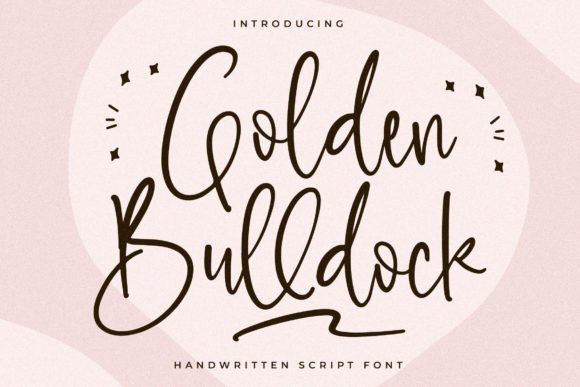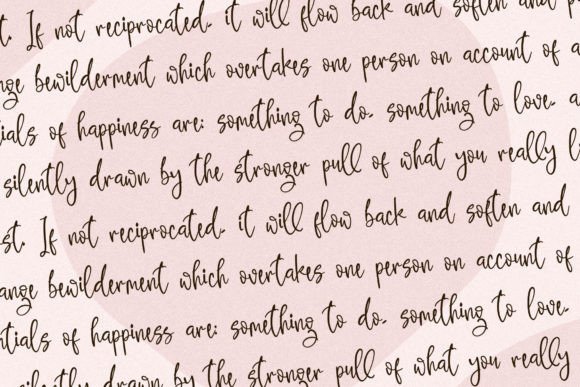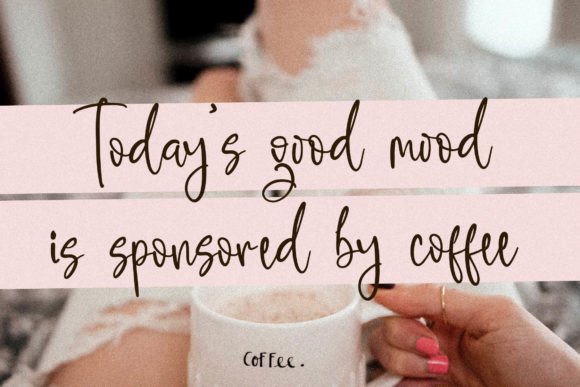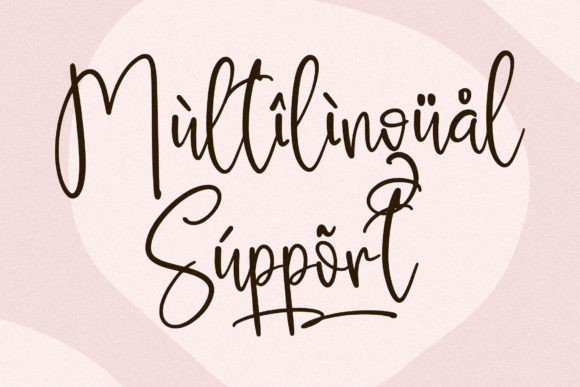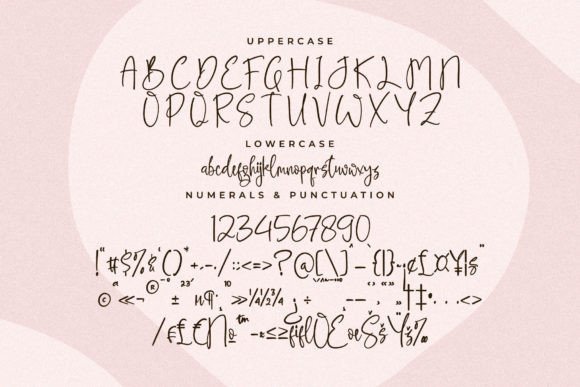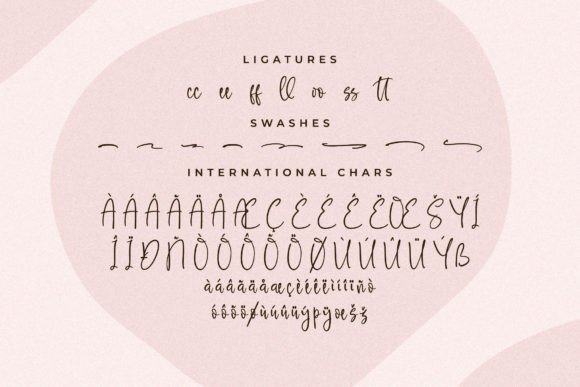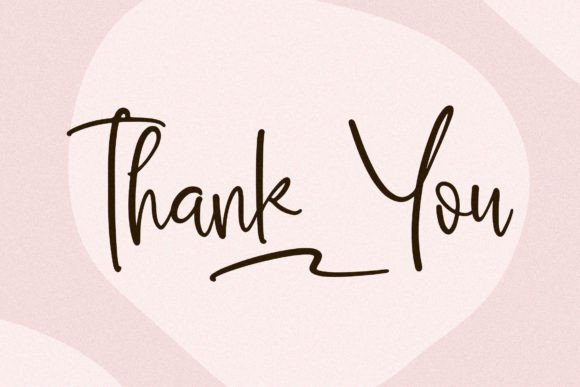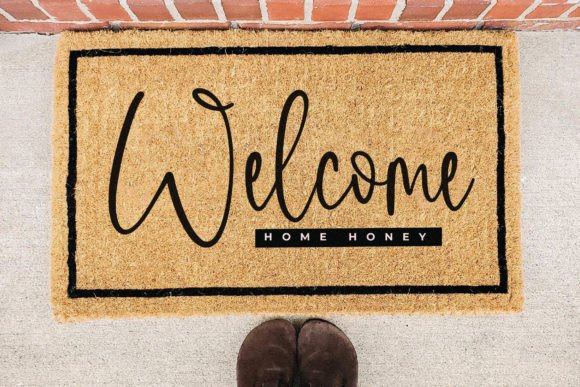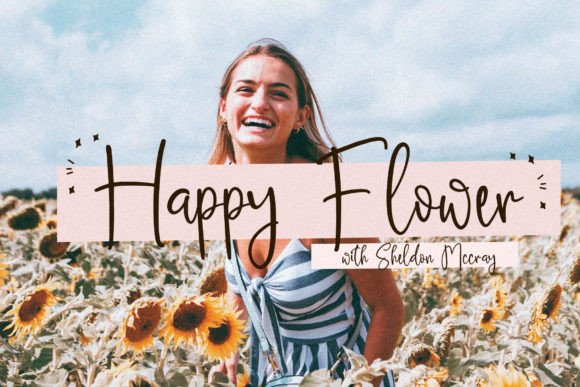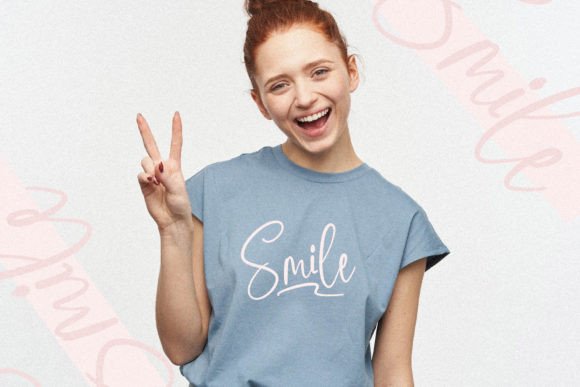
Golden Bulldock Font
About Golden Bulldock Font
The Golden Bulldock Font Download is a flowing handwritten script that combines elegance with timeless beauty. Designed with graceful curves and a natural handwritten feel, this font is perfect for creatives who want to make their projects stand out. Its smooth strokes and distinct character design create a professional yet approachable style that adapts beautifully to both digital and print formats.
Golden Bulldock is more than just a typeface; it’s a design tool that inspires creativity. With its balance of sophistication and readability, it works seamlessly across branding, invitations, packaging, and more.
Features of Golden Bulldock Font
Choosing the Golden Bulldock Font Download gives you access to a typeface crafted for versatility and detail. Its main features include:
• Elegant handwritten design with flowing curves
• Timeless and stylish look for professional projects
• Natural rhythm and balance for excellent readability
• Versatile adaptability across modern and classic designs
Best Uses for Golden Bulldock Font
The Golden Bulldock Font Download is suitable for a wide range of creative projects. Its elegant handwritten style adds sophistication to:
• Wedding Invitations & Stationery – Bring romance and elegance
• Brand Logos & Identity – Create a timeless and memorable look
• Product Packaging & Labels – Add beauty and sophistication
• Social Media Posts & Quotes – Enhance engagement with style
• Event Posters & Flyers – Deliver information with charm
• Greeting Cards & Crafts – Personalize projects with warmth
Its adaptability makes it an excellent font choice for both personal and professional use.
Why Choose Golden Bulldock Font?
Designers and creators love the Golden Bulldock Font Download because it strikes the perfect balance between elegance and creativity. Unlike rigid serif or sans-serif fonts, Golden Bulldock feels personal, warm, and inviting. Its smooth flow keeps it timeless, while its distinct forms ensure your designs will not be overlooked.
If you’re building a brand, creating event materials, or designing digital content, Golden Bulldock can easily elevate your work. Its charm lies in its ability to look refined without losing a natural, handwritten feel.
The Golden Bulldock Font Download is a versatile handwritten script designed to bring elegance, creativity, and timeless appeal to your projects. Whether you’re working on branding, social media graphics, or special event invitations, this font provides the perfect blend of sophistication and charm.